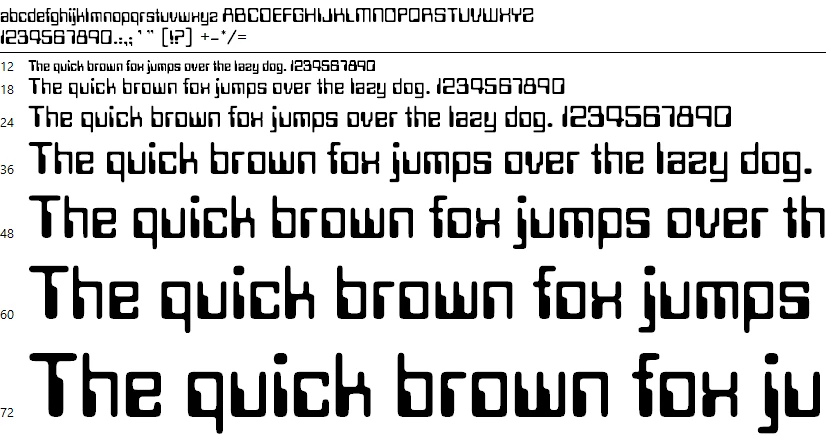
Data Seventy is a high-tech style font, with the look of old computer lettering. Bob Newman designed this font. With up to 10 OpenType features and a minimum of 387 characters, Data 70 is a very much attractive font. Data 70 contains 1 style and 56 language support.
Data Seventy is basically the text font but expanded to more in use. You can use the font in any content with its beautiful style.
- Designing: Data Seventy is good for designing purposes. You can create beautiful logos, banners, brochures, composing books covers, posters, magazines, business cards, product design, posters and so many.
- Front Page: Well organized Data Seventy has the perfection to place on the cover page and heading for the design perception.
- Text: Common use of Data Seventy is in text for any content. You can use Source Code Pro in many ways but you can use for the quotes also.
| Name | Data 70 Font. |
| Style | Technical, Decorative, Display. |
| Designer | Bob Newman. |
What type of font is Data 70 Font?
Ans: Data Seventy is a high-tech style font, with the look of old computer lettering.